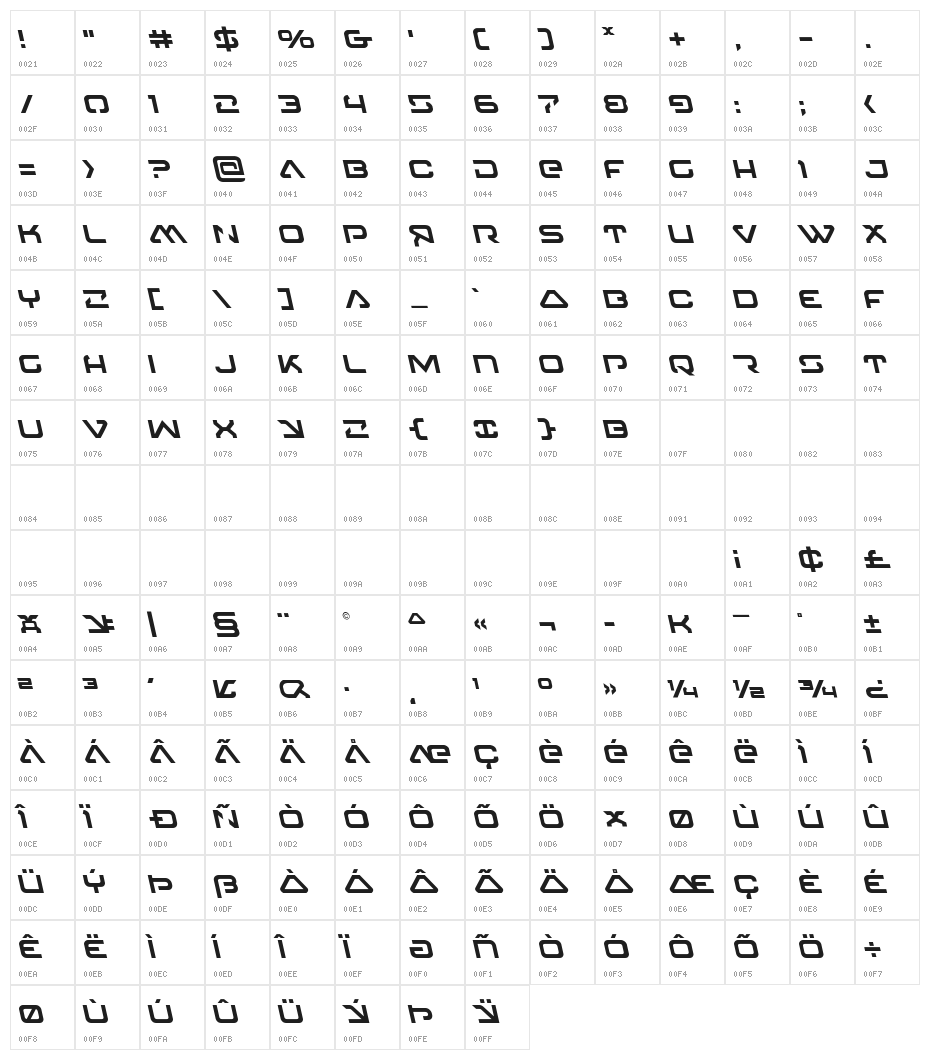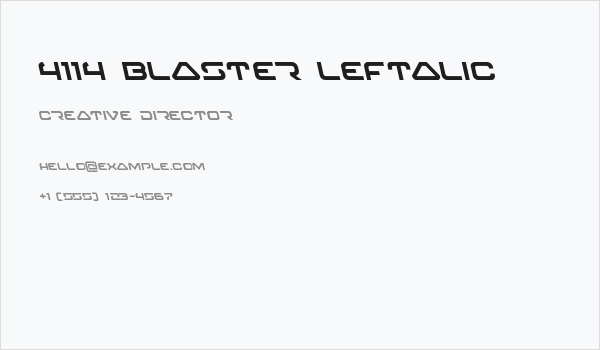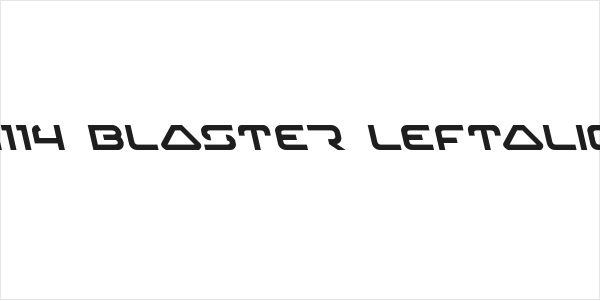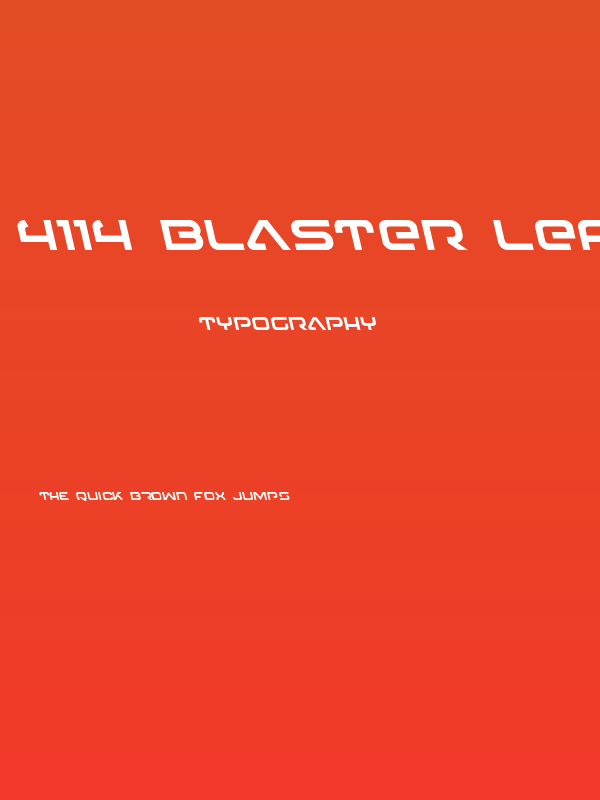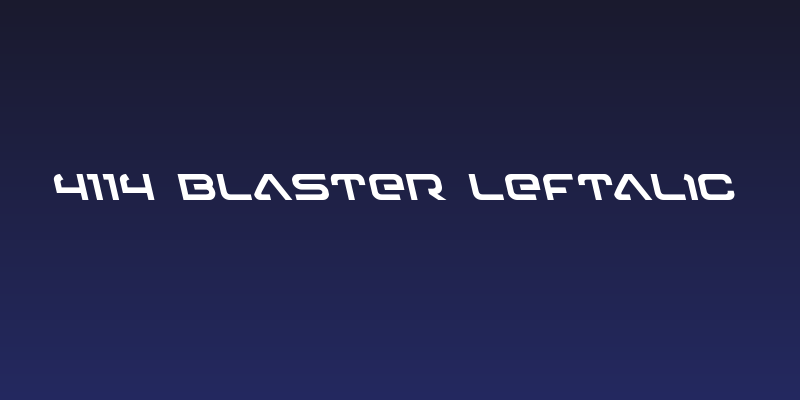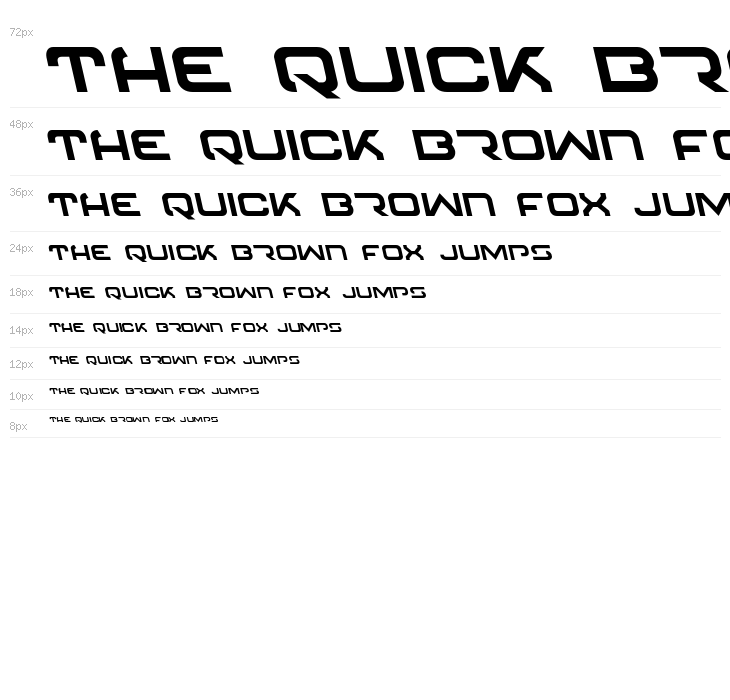
4114 Blaster Leftalic Font
4114 Blaster Leftalic Description
This font features a futuristic and angular design, characterized by its sharp edges and geometric shapes. The uppercase letters are bold and dynamic, with a distinct slant that gives a sense of motion and speed. The lowercase letters maintain the same angular style, providing a cohesive look across the typeface. Numbers and special characters are designed to match the overall aesthetic, making them suitable for digital and tech-oriented projects. The font's unique style makes it stand out, ideal for creating eye-catching headlines and logos.
| Proposed Projects | Ideal for sci-fi themed designs, tech branding, video game titles, and futuristic posters. |